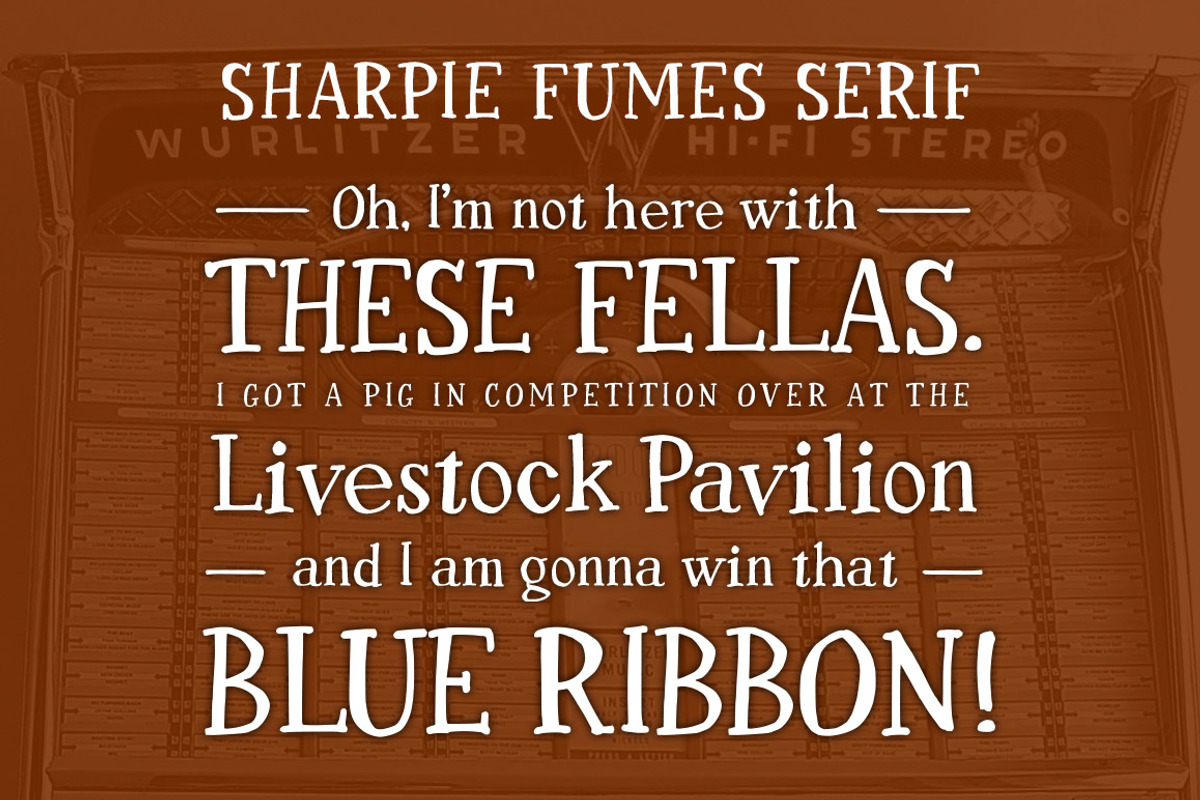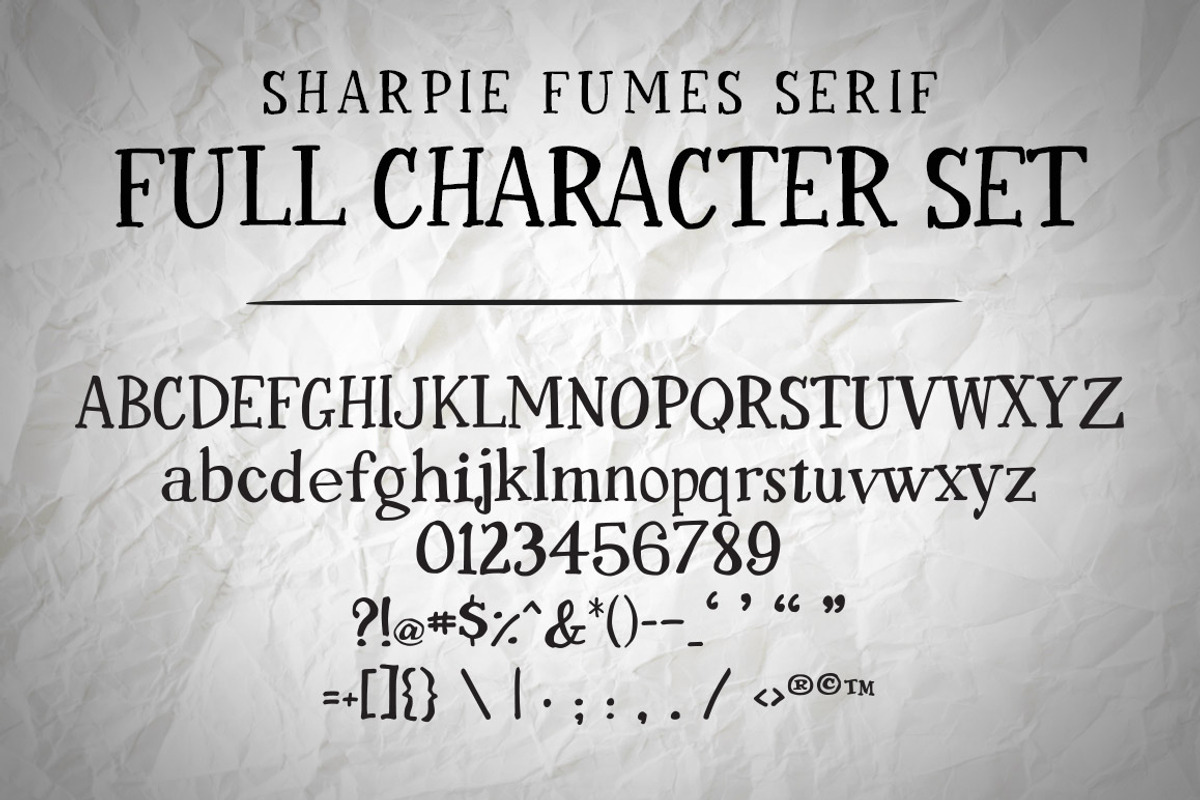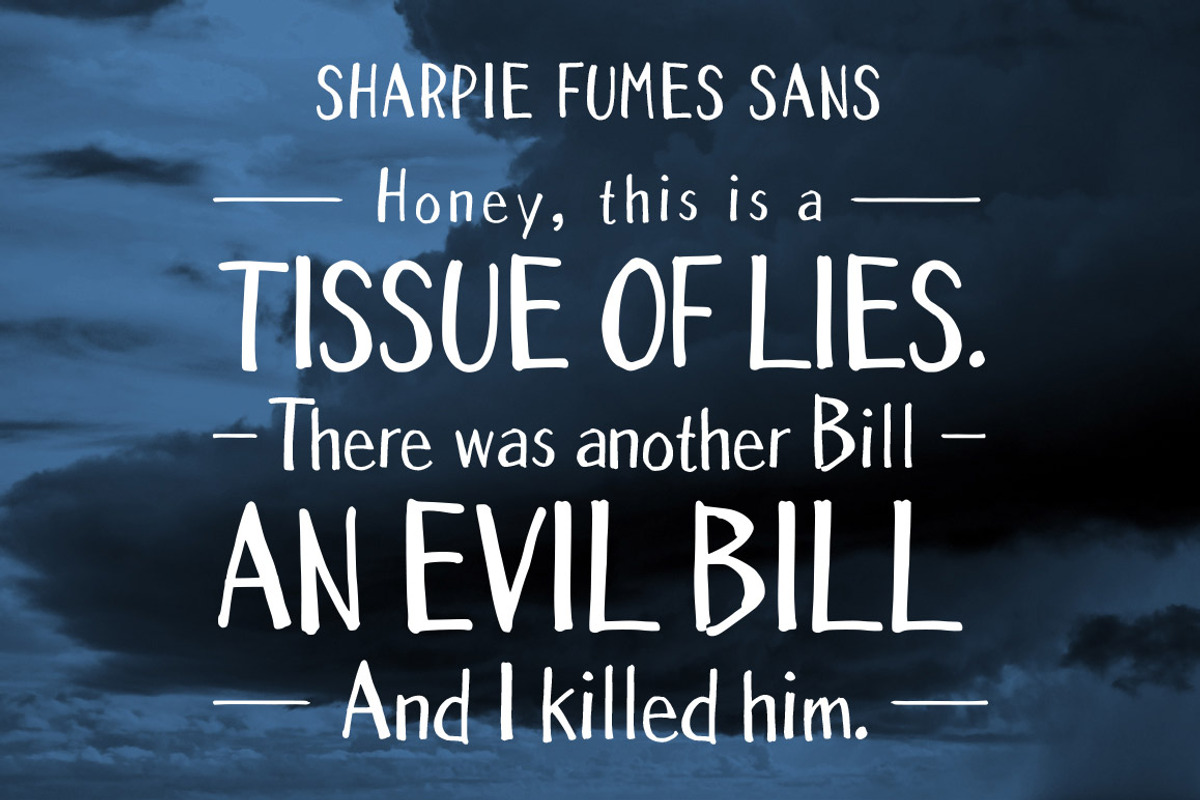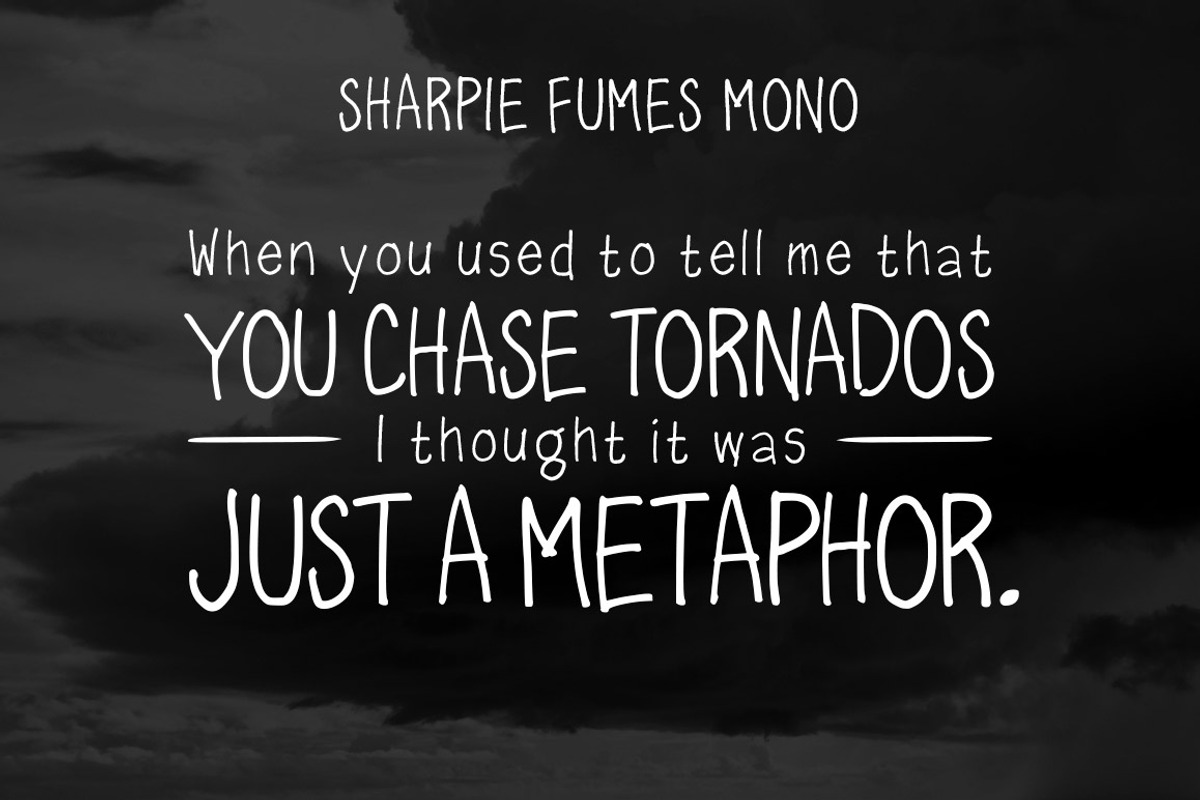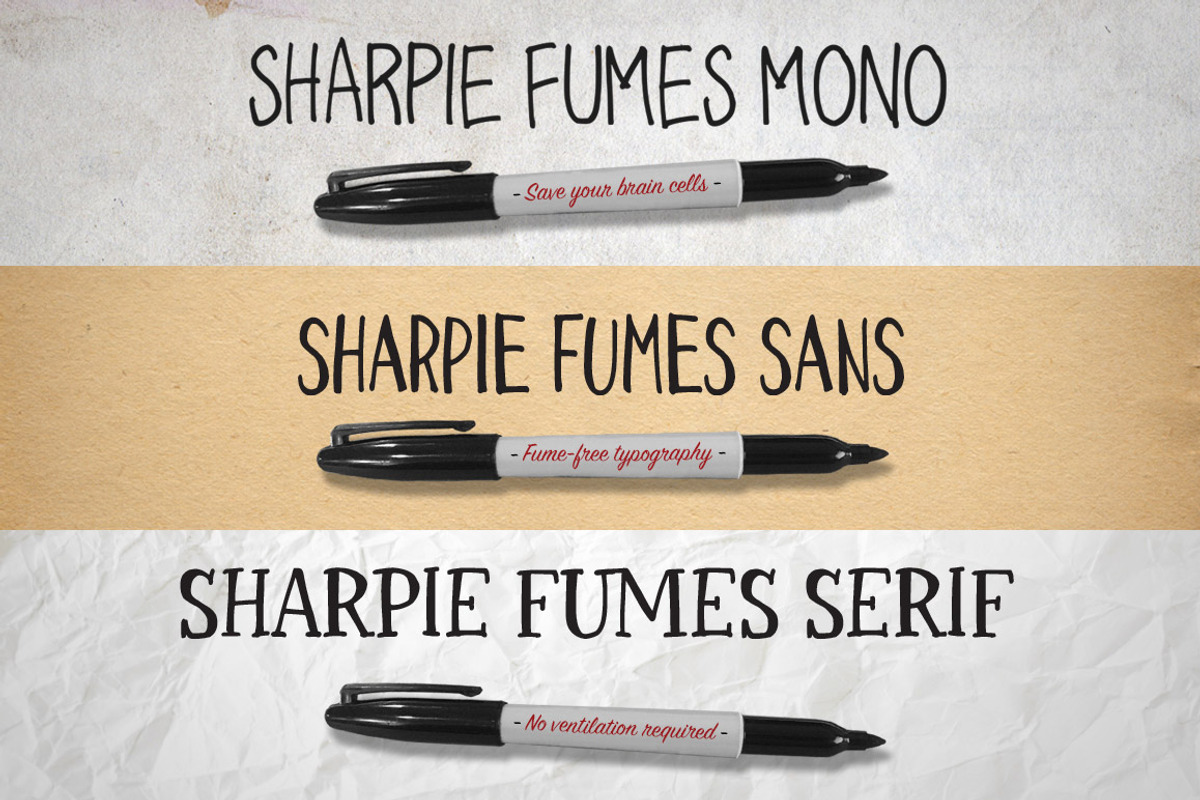
Sharpie Fumes Font Family
Save by getting the set of 3! Introducing the Sharpie Fumes Font Family, three hand-drawn fonts that originated from the creation of hand-lettered ad layouts earlier in my days as an art director, and still used today as creative director. The Sharpie Fumes Family will give your work that handcrafted quality lacking in so many of today's sanitized designs.
A mono, sans serif and serif version with unlimited possibilities.